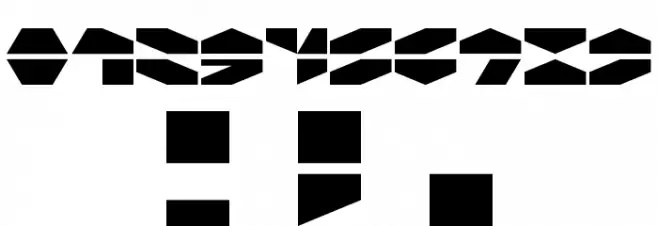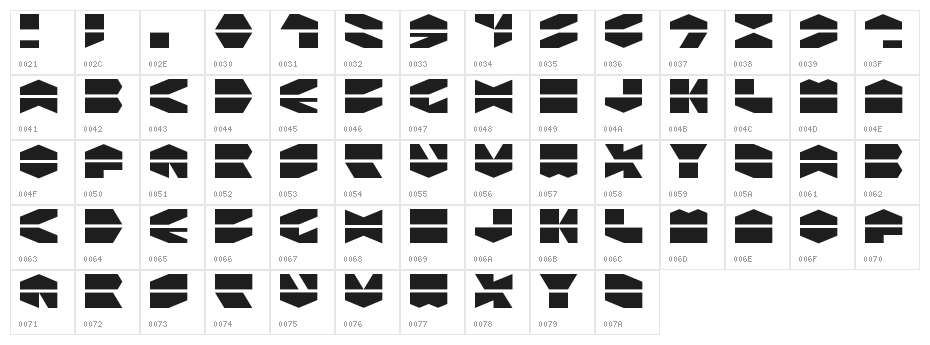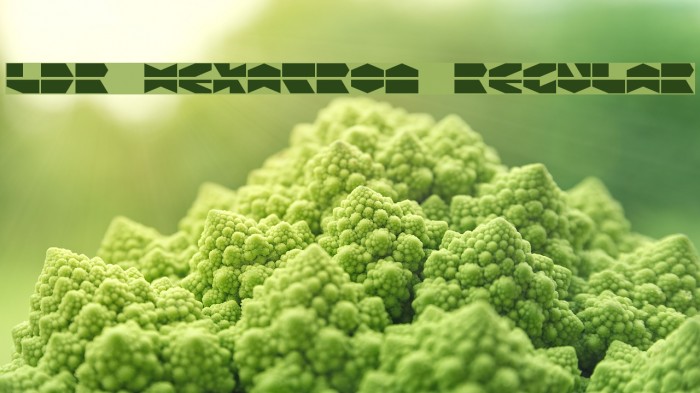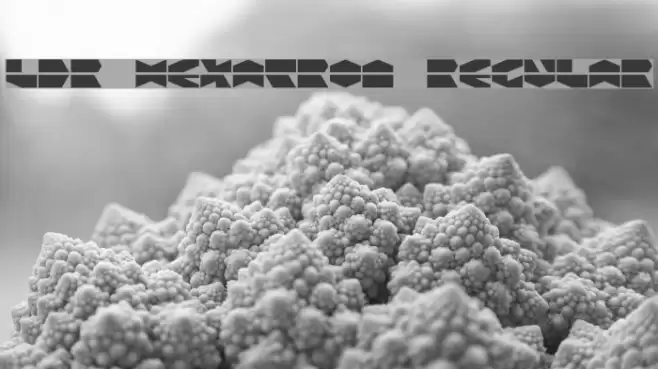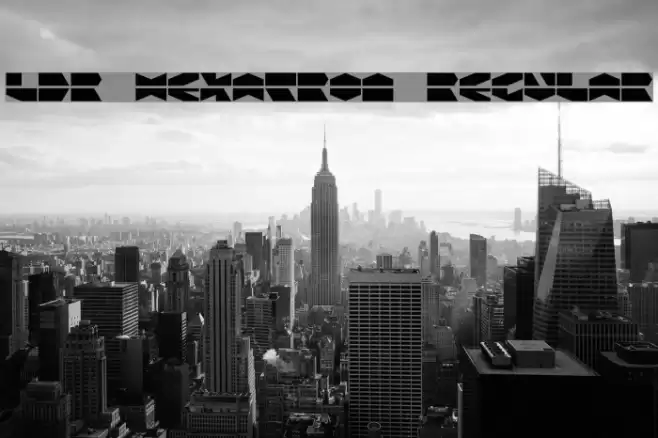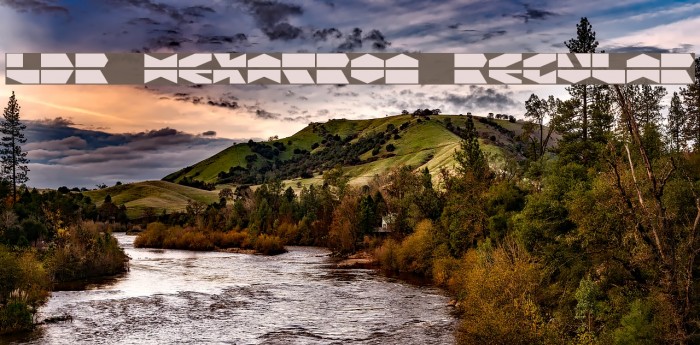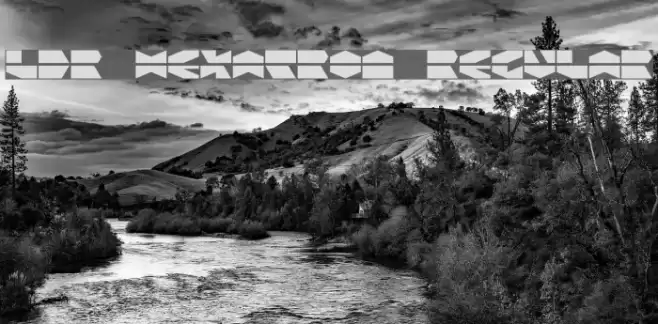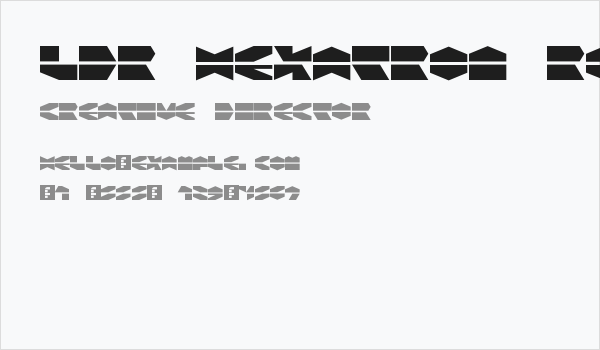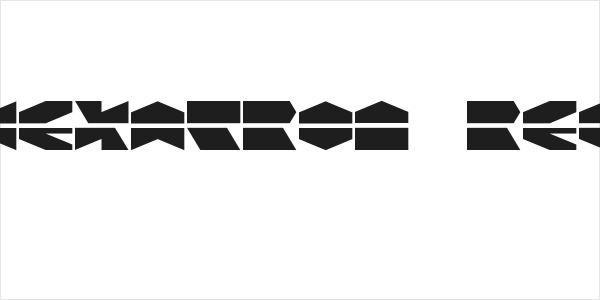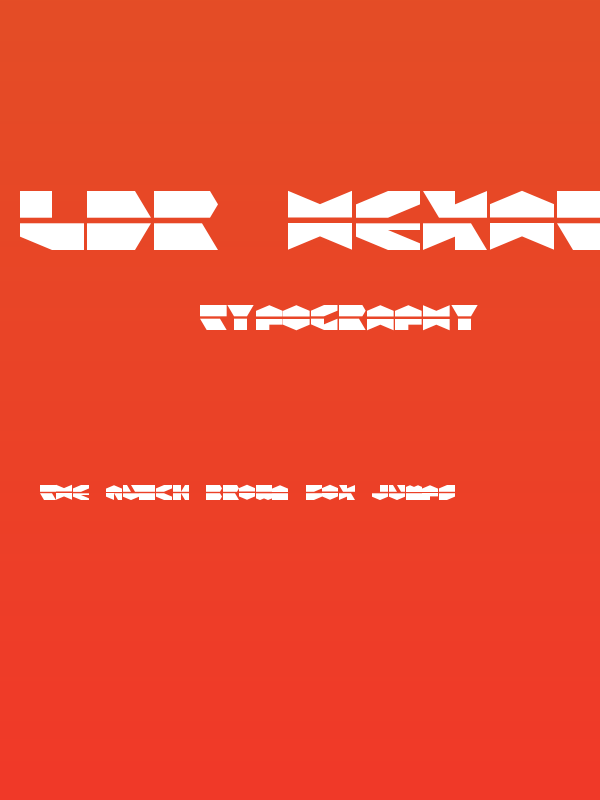
LDR HEXATRON Regular Font
LDR HEXATRON Regular Description
This font features a bold, geometric design with a futuristic and digital aesthetic. Each character is constructed from hexagonal and angular shapes, creating a unique and eye-catching appearance. The uppercase and lowercase letters maintain a consistent style, emphasizing sharp edges and a blocky structure. The numerals and special characters follow the same design principles, ensuring uniformity across the entire typeface. This font is ideal for projects that require a modern, tech-inspired look, such as digital interfaces, gaming titles, or sci-fi themed designs.
Proposed ProjectsIdeal for digital interfaces, gaming titles, sci-fi themed designs, and tech-inspired branding.